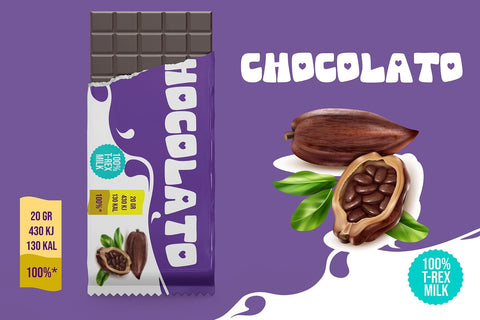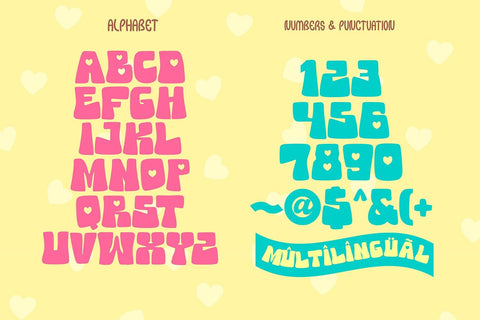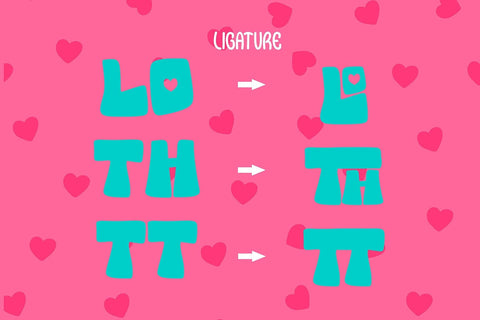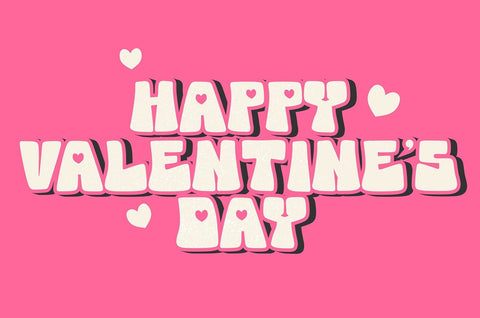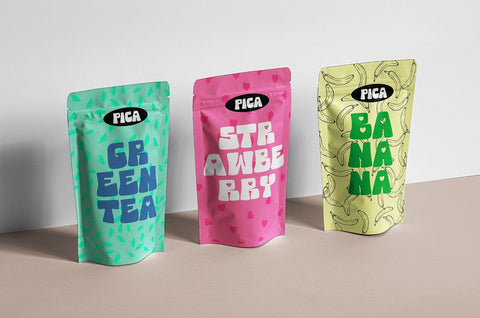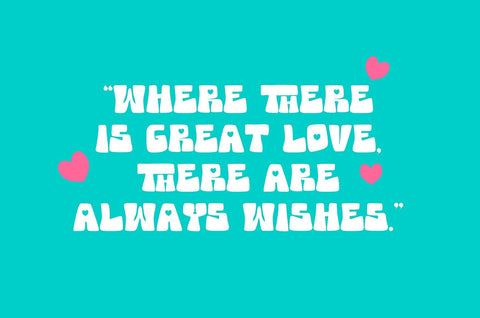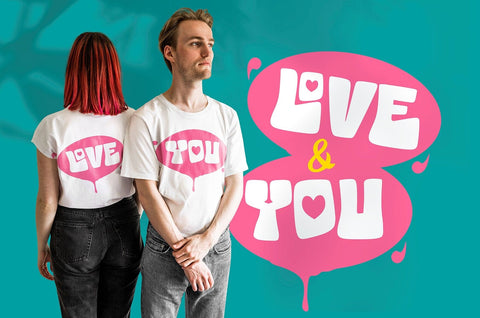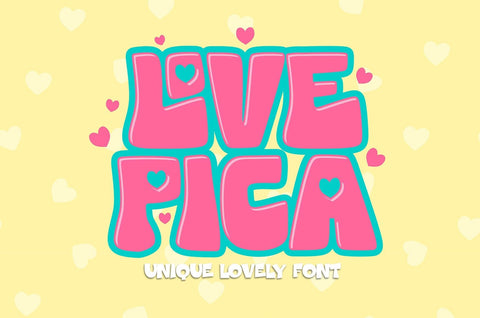
Love Pica - Valentine Font
Love Pica is a lovely Typeface with Ligature inside. It features gorgeous hearts in each letter which give it an incredibly romantic feel. this font suitable for valentine day poster, logo, t shirt, event banner and etc. you can use this font for any design, apparel, kids logo, logo type, with many Ligature for make your design awesome.